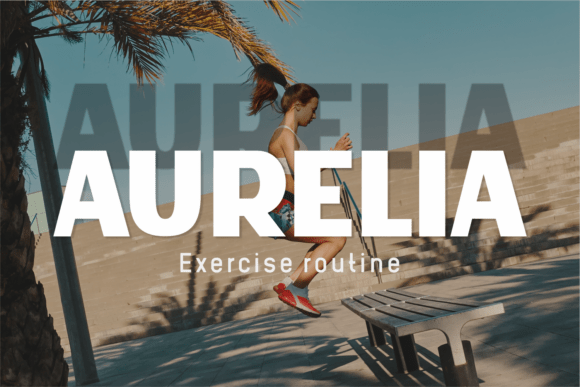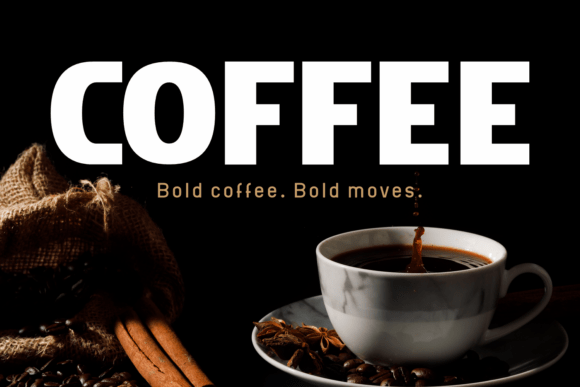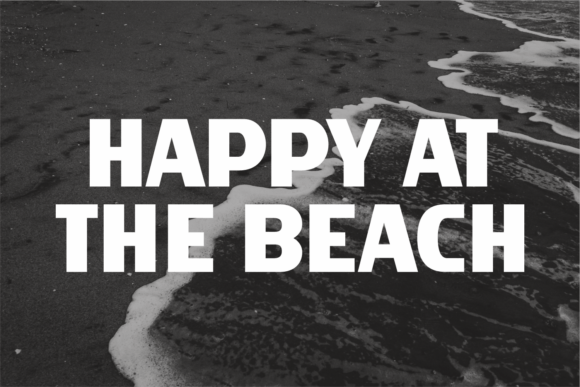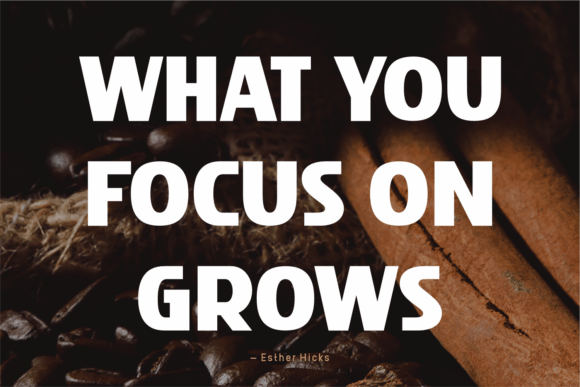
Introduction to Mirox Font
Experience the charismatic appeal of Mirox Font, the epitome of bold and impactful storytelling.
This heavy sans serif display font interweaves a minimalist sans serif style with modern chunky letters, perfect for those seeking a contemporary display Visually compelling with its thick block lettering, Mirox elegantly intertwines a retro feel with urban sensibilities.